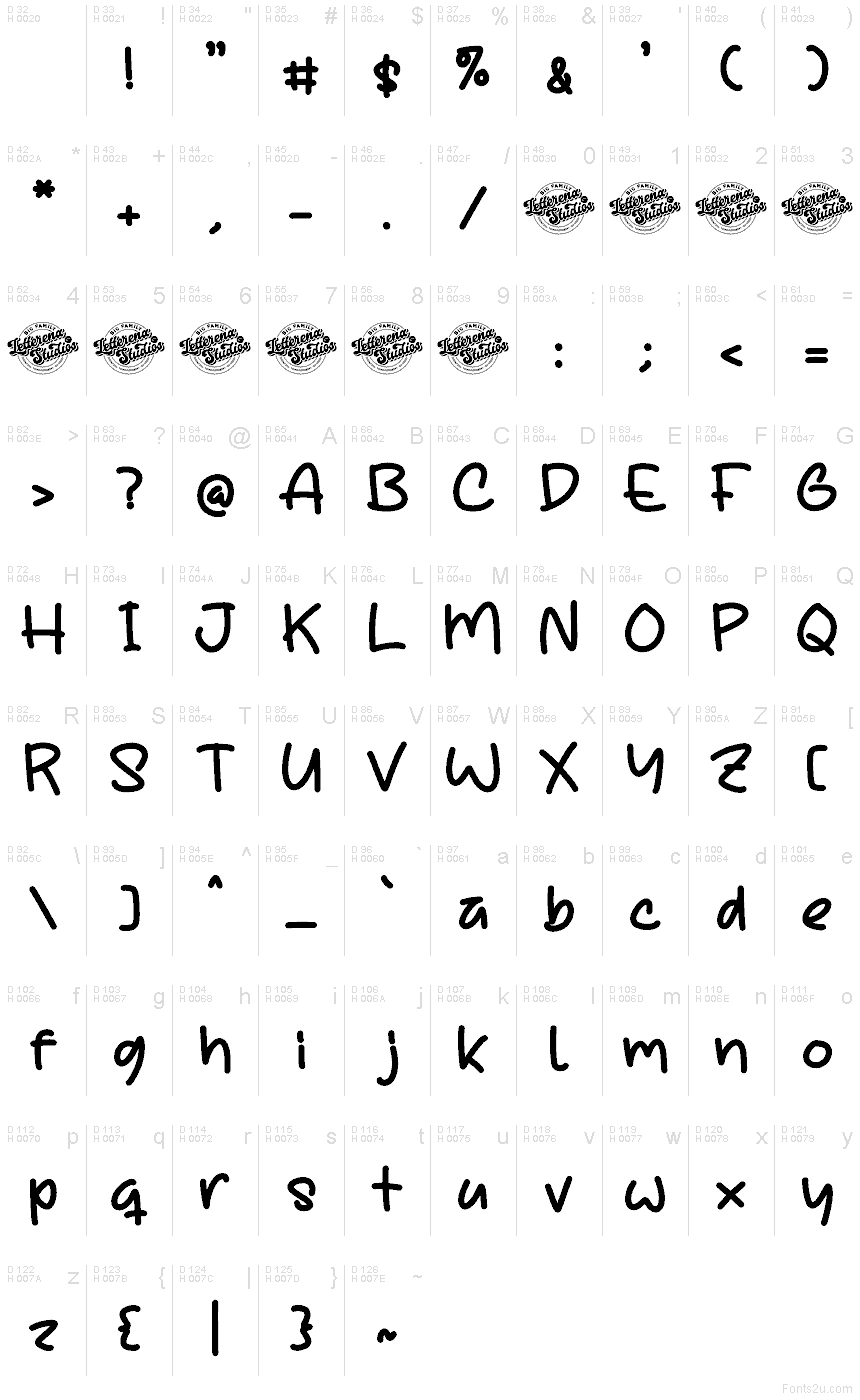
Foresto Rayfith DEMO VERSION
Foresto Rayfith font by Letterena Studios is a free handwritten font featuring an expressive character and informal elegance. Its casual style and hand-drawn appearance give it a personal touch perfect for projects in which a personable look is required.
The font works lovely on invitation cards, name tags, quotes, social media profile images, posters, story highlight reels covers, birthday prints, merchandise designs, sticker typography any more. Download this magnificent free font to enhance your current and future personal or professional projects with an intimate feel.